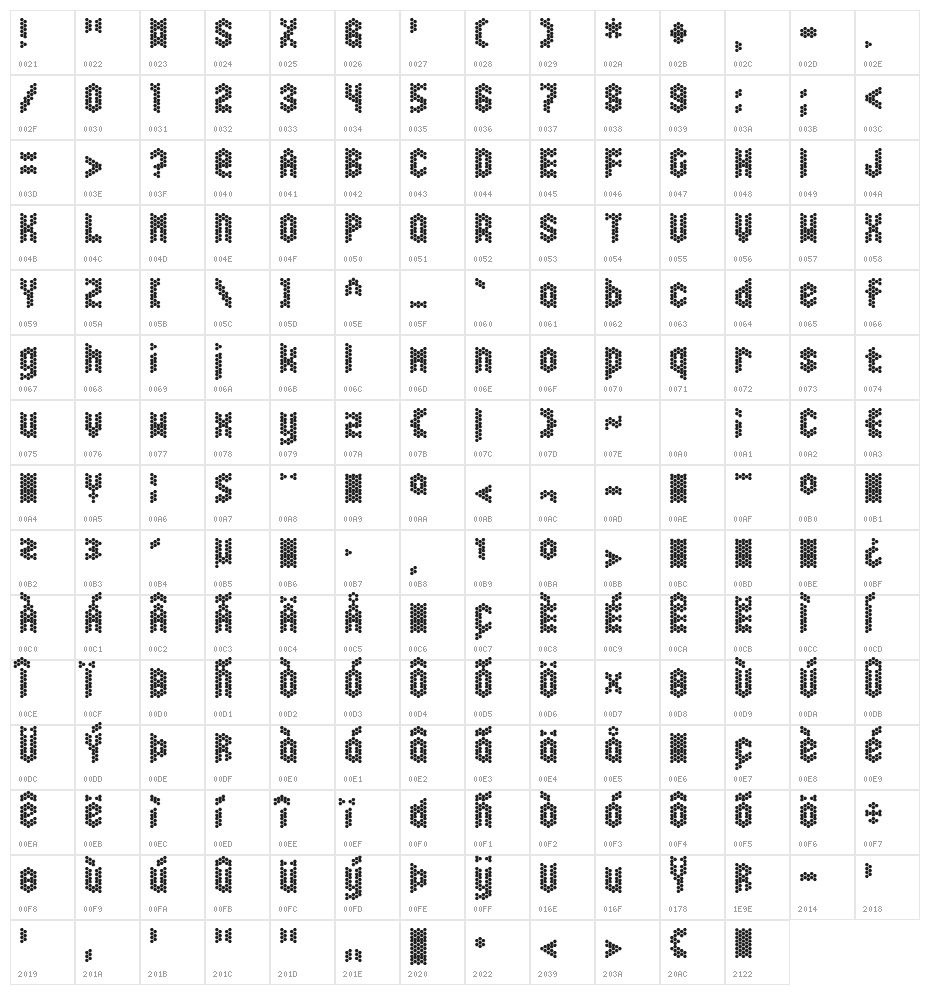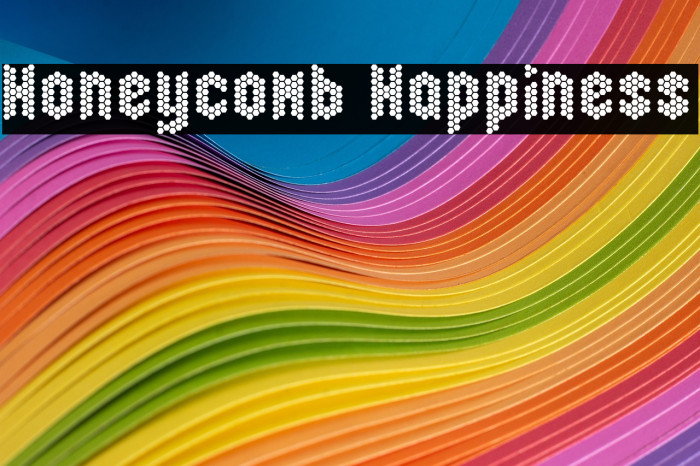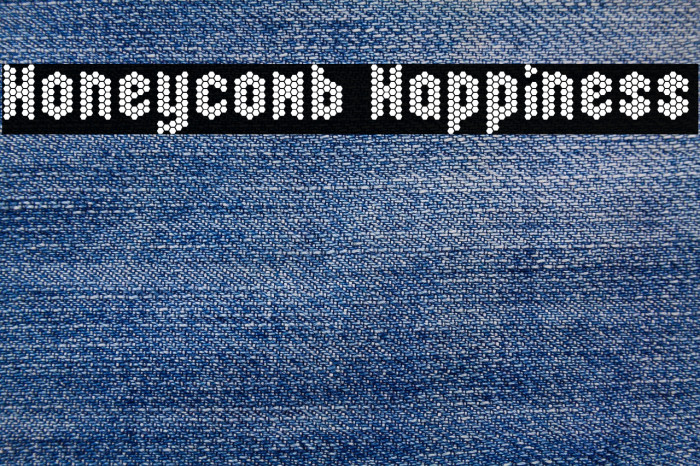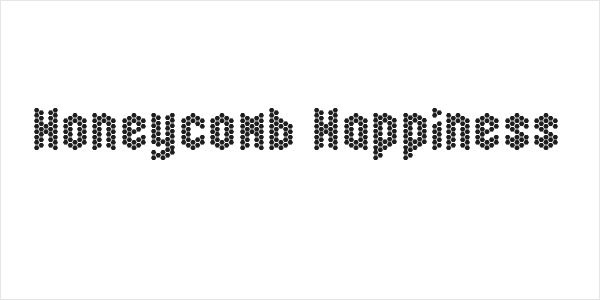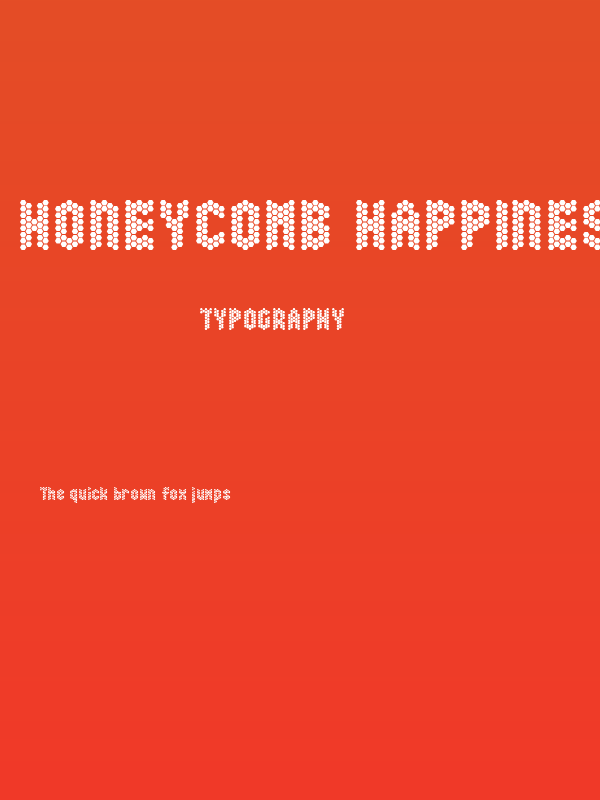
Honeycomb Happiness Font
Honeycomb Happiness Description
This font features a unique design where each character is composed of small hexagonal shapes, resembling a honeycomb pattern. The geometric arrangement gives it a distinct, playful appearance, making it stand out as a decorative typeface. The characters are bold and well-defined, with consistent spacing that maintains readability despite the intricate design. The font's structure is uniform across uppercase, lowercase, numbers, and special characters, ensuring a cohesive look. Its playful and creative style is perfect for projects that require a touch of whimsy and uniqueness.
| Overall Style | Playful, Creative |
| Use Case | Logos, Posters, Invitations |
| Proposed Projects | Ideal for children's books, playful branding, creative posters, and unique invitations. |